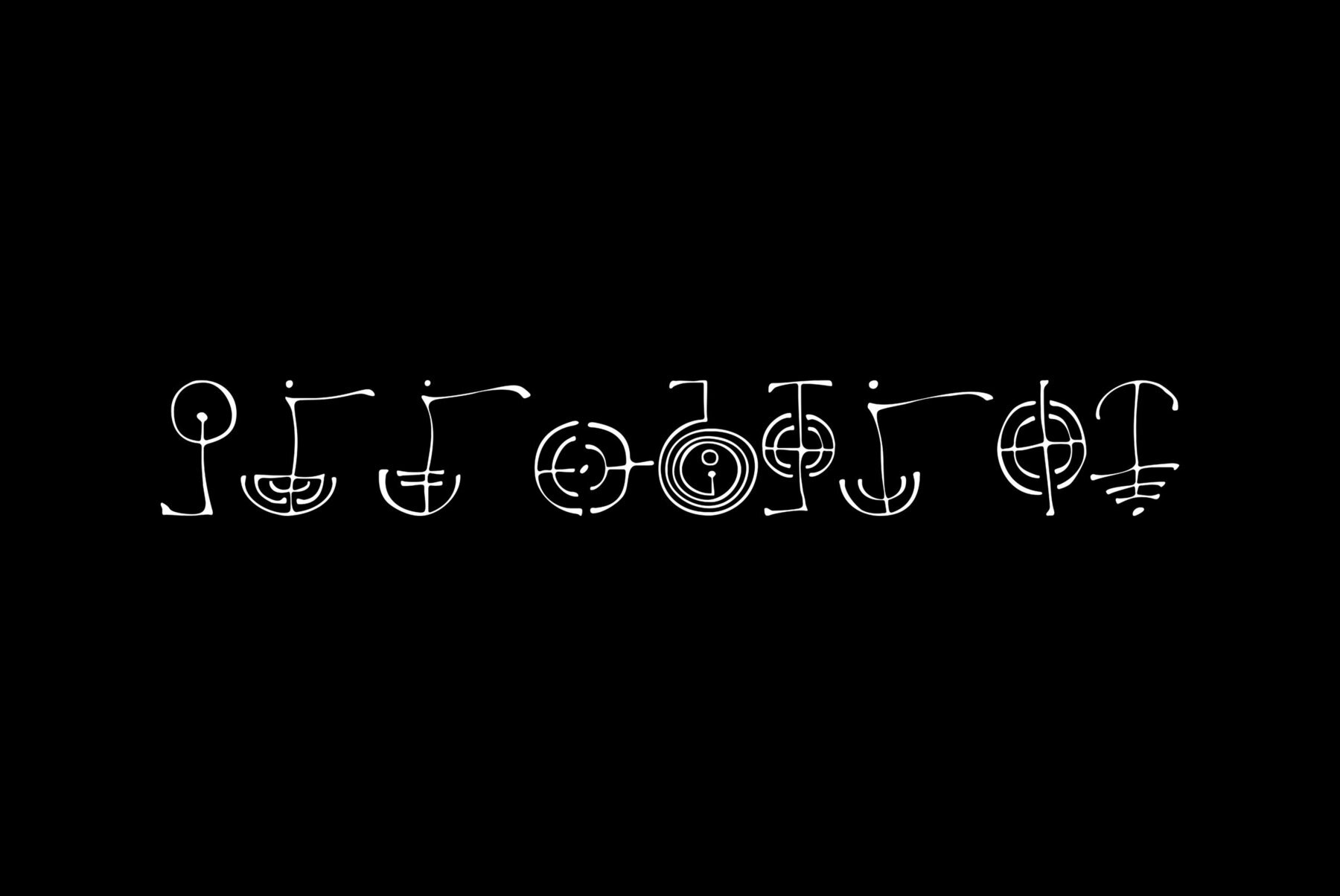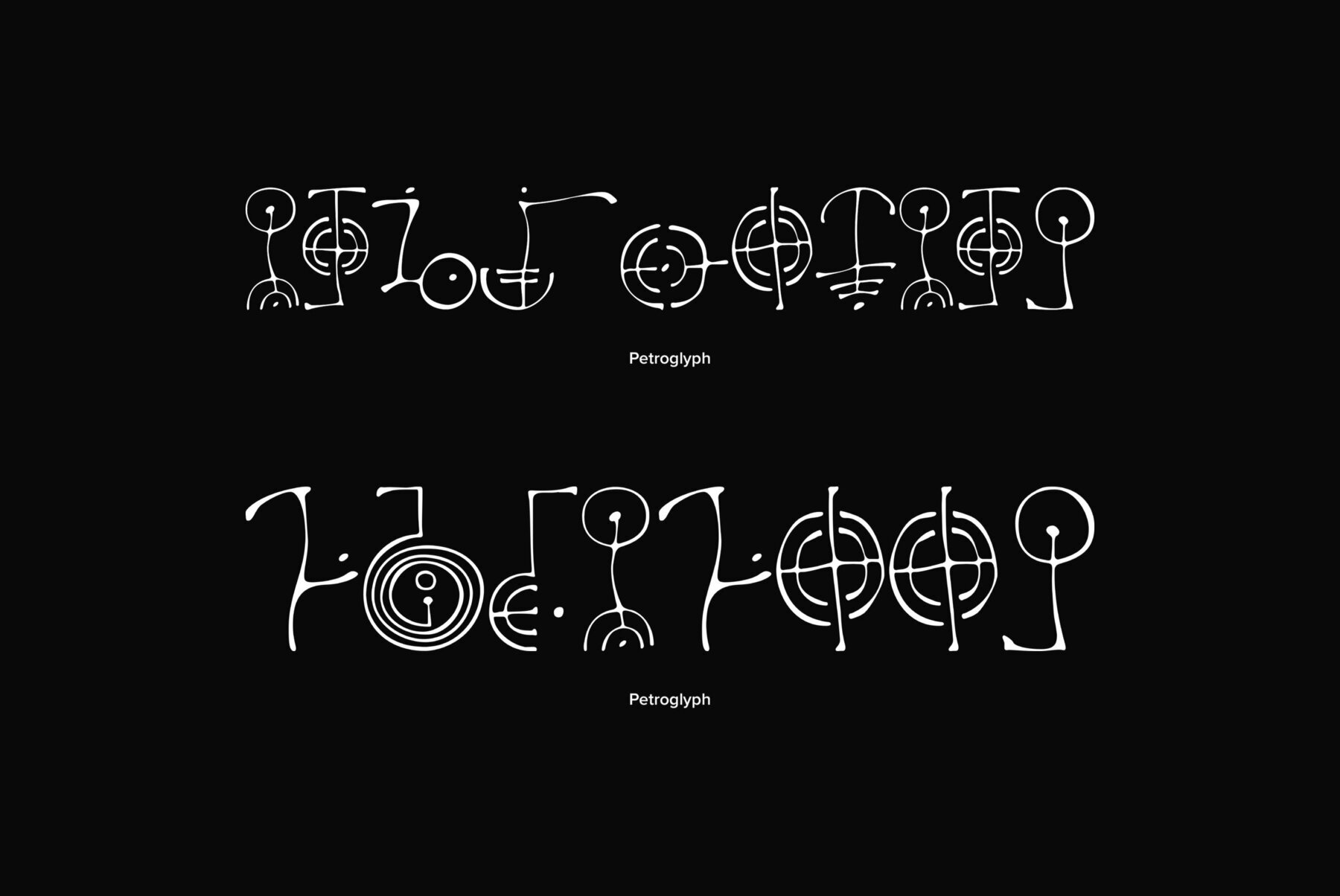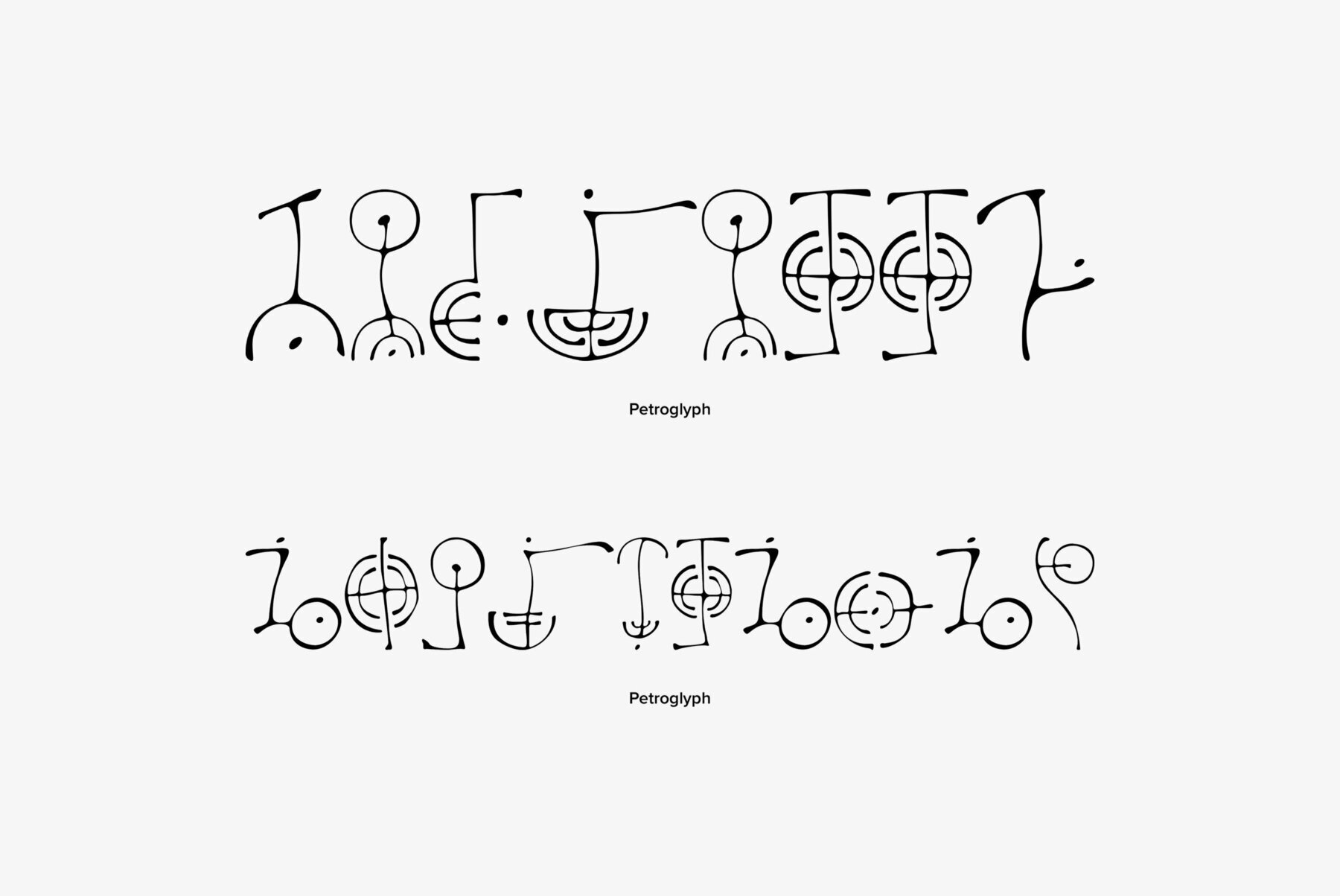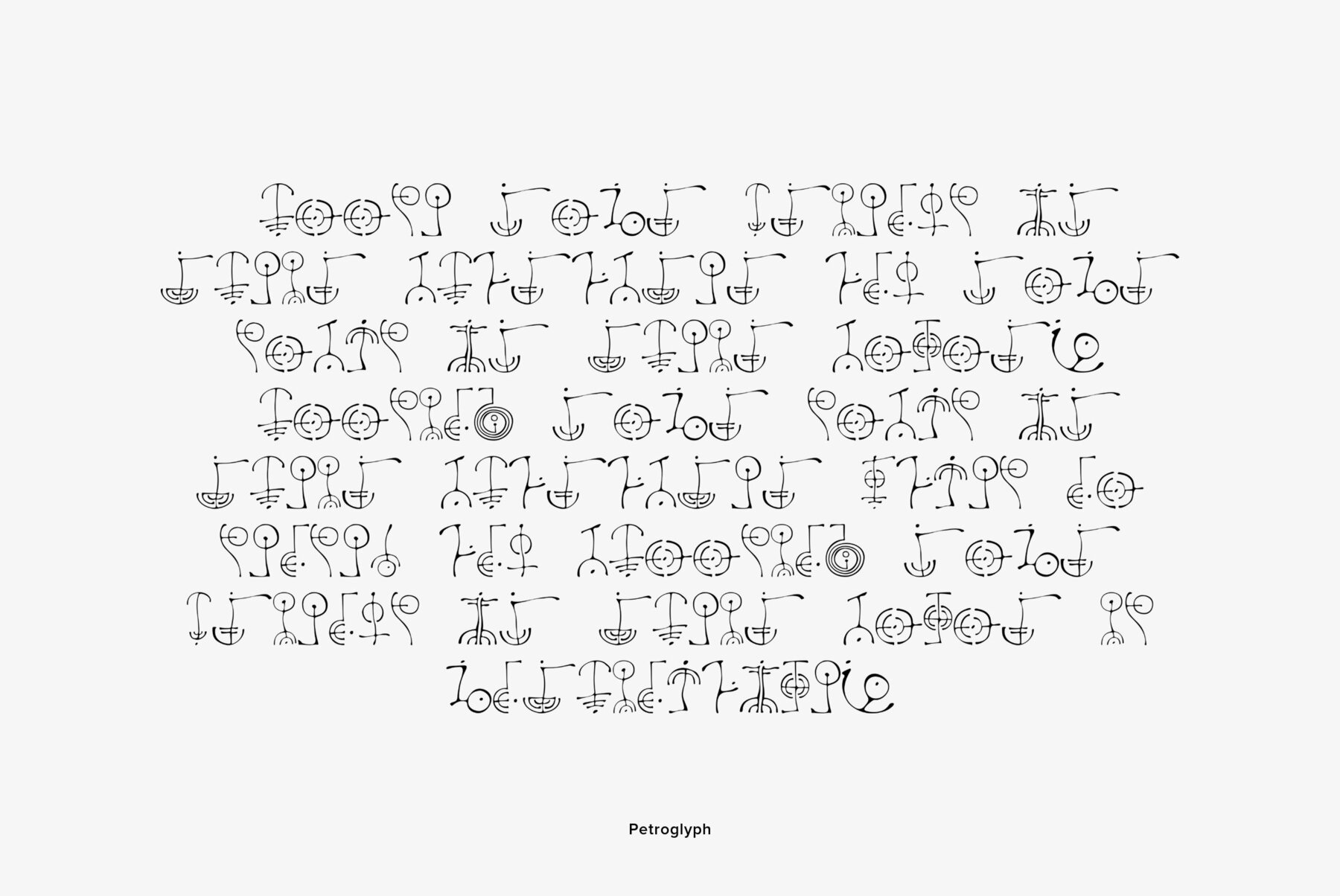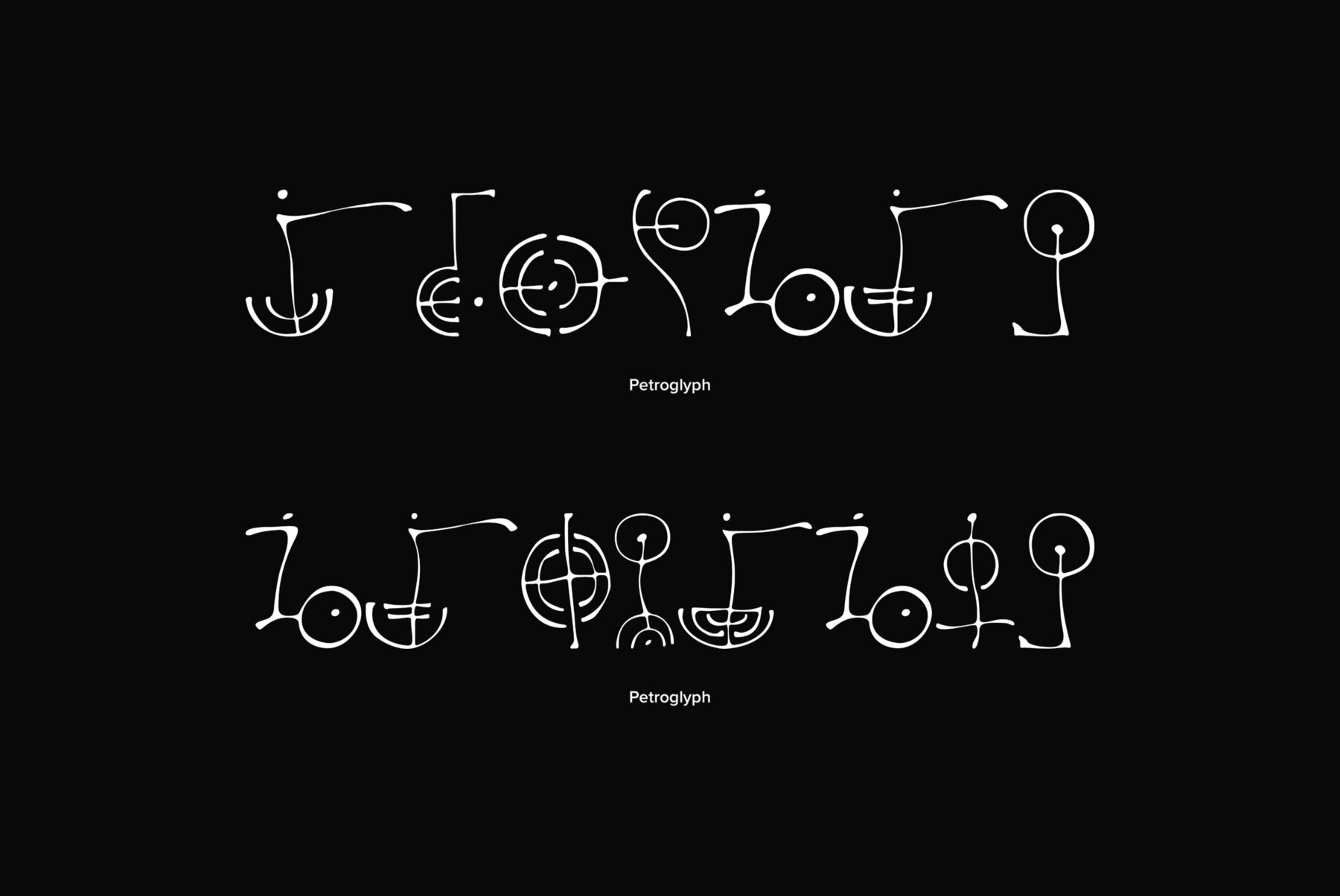
Petroglyph Petroglyph
PT Petroglyph™ was designed by Ekaterina Kulagina and licensed by ParaType in 2002. The type was created on the basis of petroglyphs (rock-carvings) that are known in 77 countries. They remained in a form of geometrical drawings in the caves of North Spain and France. Scientists claim that the radial spread-out of circles or center-pointed circles that are usually depicted show the development of solar symbolism at that period of time.